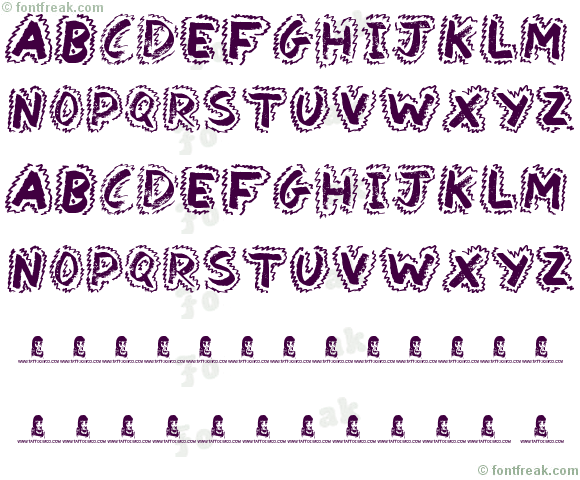
Yak Shamash
The Yak Shamash font, designed by Jonathan S. Harris in 2013, is a distinctive display typeface that captures attention with its unique flair. This font is categorized as a decorative typeface, characterized by its playful and energetic visual style. The strokes feature a bold weight with a slightly irregular texture, giving it an organic and hand-drawn feel. The uneven edges and dynamic spacing create a sense of movement, making it particularly eye-catching in various design contexts.
Yak Shamash is an excellent choice for a range of creative projects. Its lively appearance makes it perfect for tattoo designs, capturing the essence of personal expression. Additionally, it can be effectively used in promotional materials for events or festivals, where a vibrant and captivating design is essential. This font also shines in marketing collateral for businesses that want to convey a fun and approachable brand image, such as cafés or boutique shops. Furthermore, it can add a unique touch to social media graphics, making it a favorite among content creators looking to stand out.
What sets the Yak Shamash font apart is its ability to blend whimsy with versatility. Its unique characteristics make it not just a typeface but a statement piece that can elevate any design project. Downloading the Yak Shamash font free allows you to explore its potential and add a distinctive edge to your creative work.